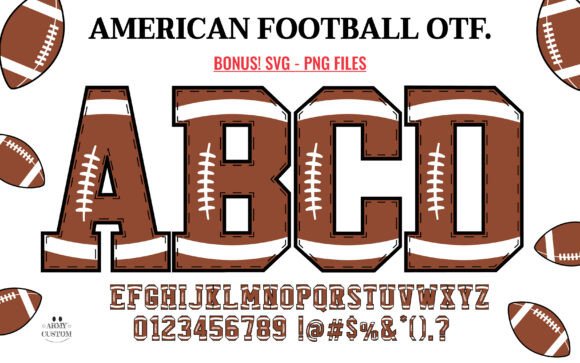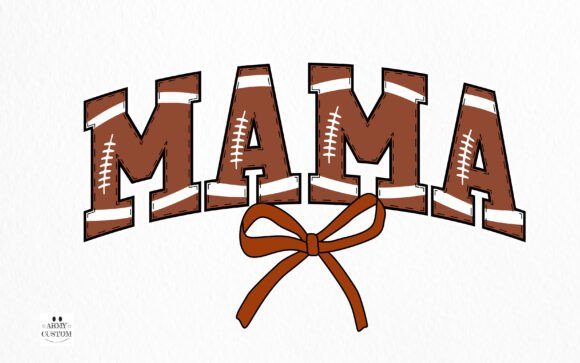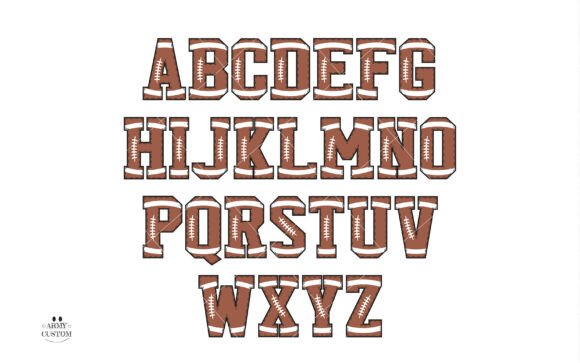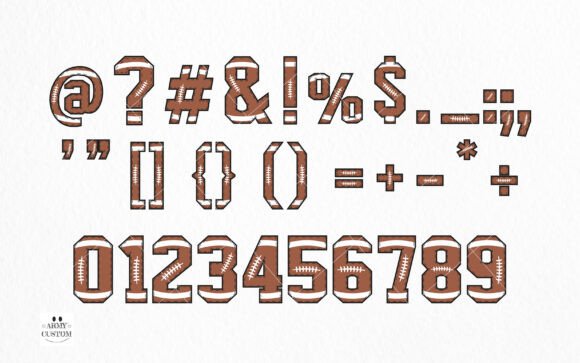
American Football Font
Immerse yourself in the exhilarating world of gridiron with the American Football Alphabet. This innovative font, with its athletic underpinnings, captures the essence of American football in every letter. Seamlessly combining design and sport, it exudes dynamism and competitive spirit, making it a quintessential choice for those seeking to communicate strength, agility, and unyielding spirit. Conceived with a unique blend of creativity and passion, this font emerges from a place of deep inspiration, an homage to the beloved American pastime. Dive into expressive typography, where sport meets style with the American Football Army Font.